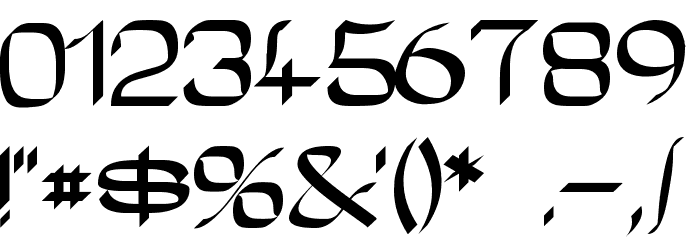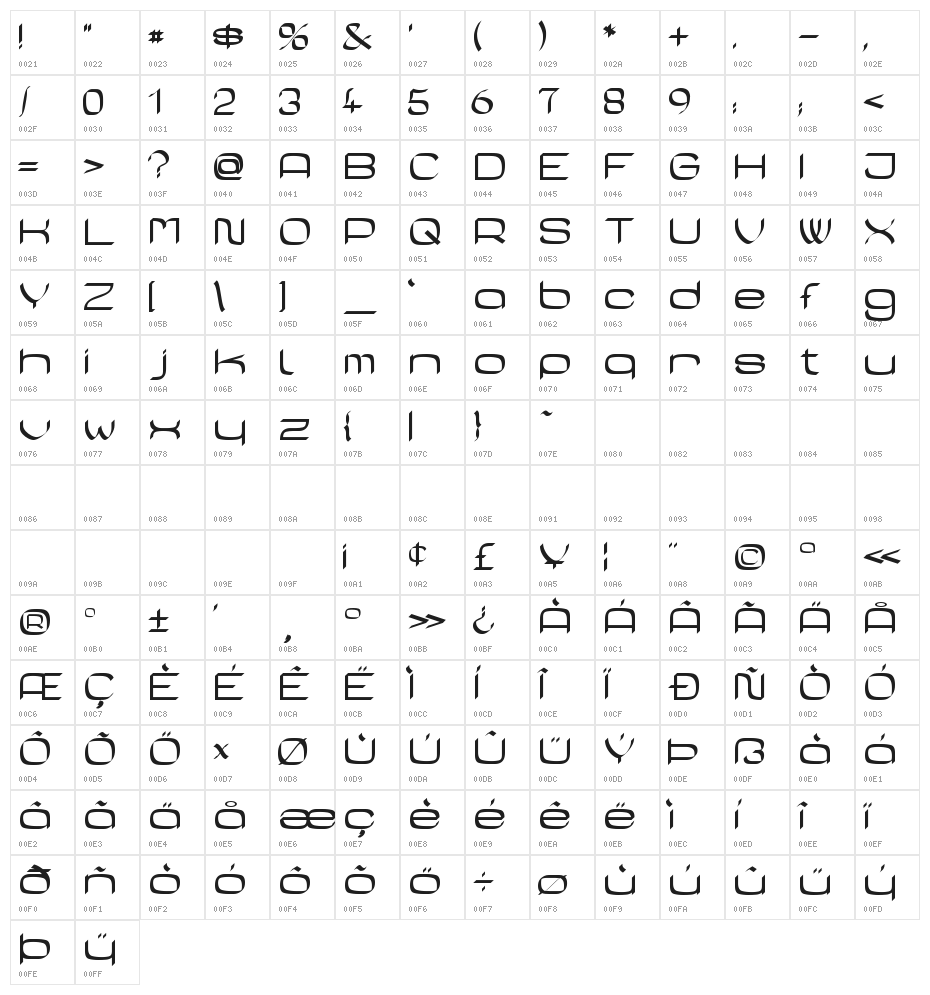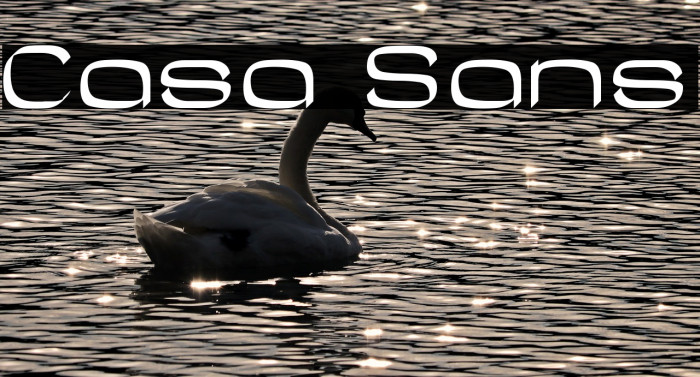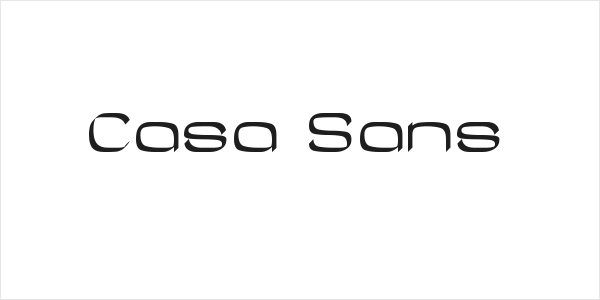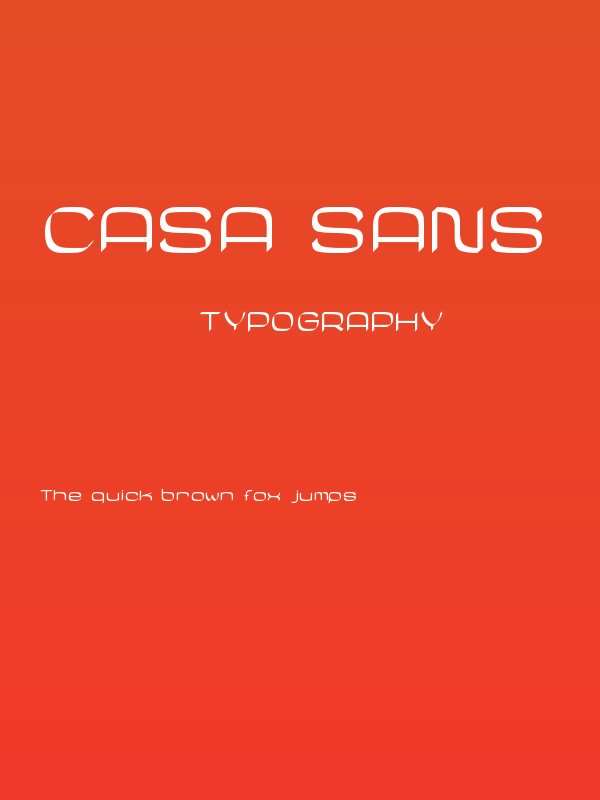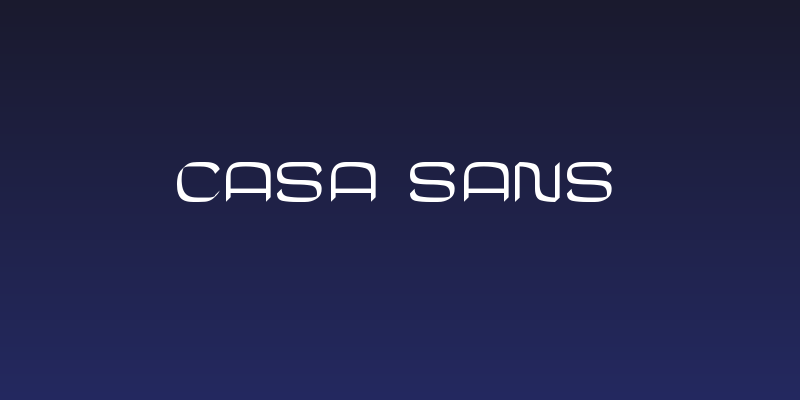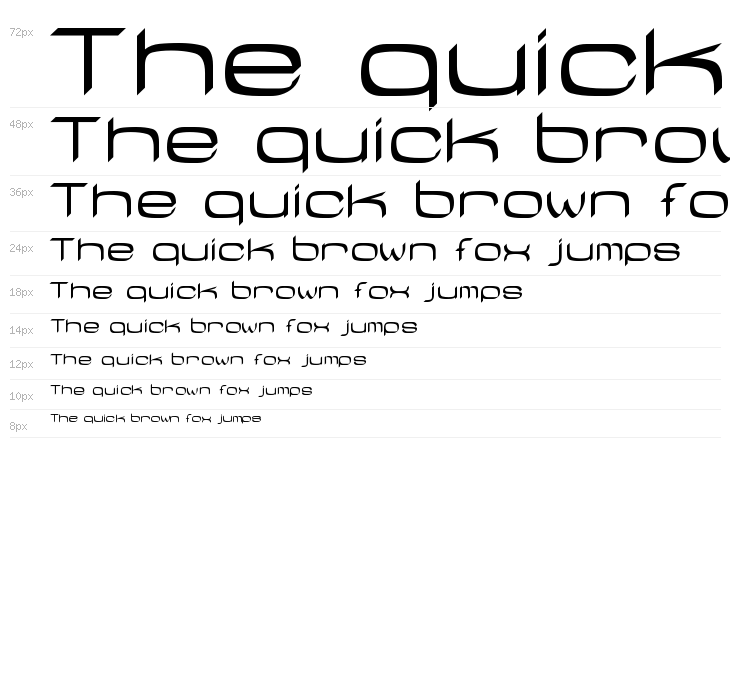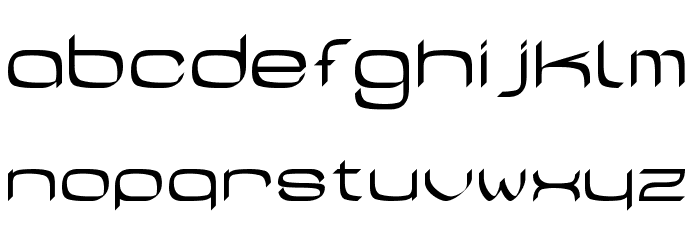
Casa Sans Font
Casa Sans Description
This font features a modern and futuristic design with sharp, angular edges and a sleek appearance. The uppercase letters are bold and geometric, while the lowercase letters maintain a consistent style with slightly softer curves. The numerals are distinct and maintain the angular theme, providing a cohesive look across all characters. Special characters are uniquely styled to match the overall aesthetic, making this font suitable for creative and contemporary projects.
| Use Case | Logos, Headlines, Digital Media |
| Proposed Projects | Ideal for technology branding, sci-fi themed designs, modern logos, and digital media. |